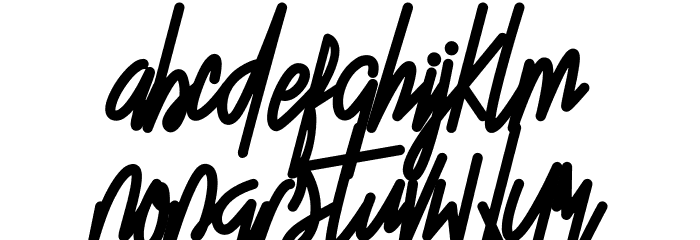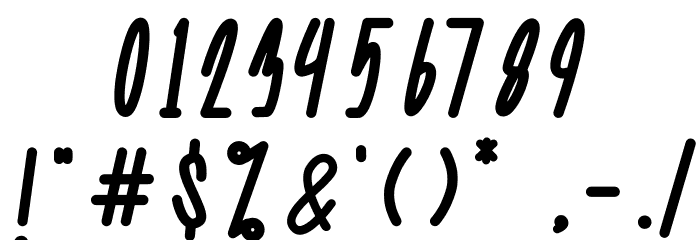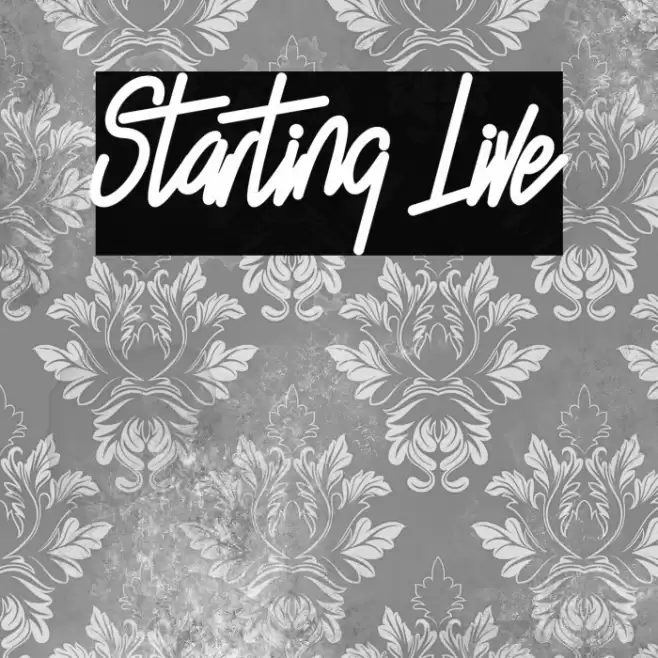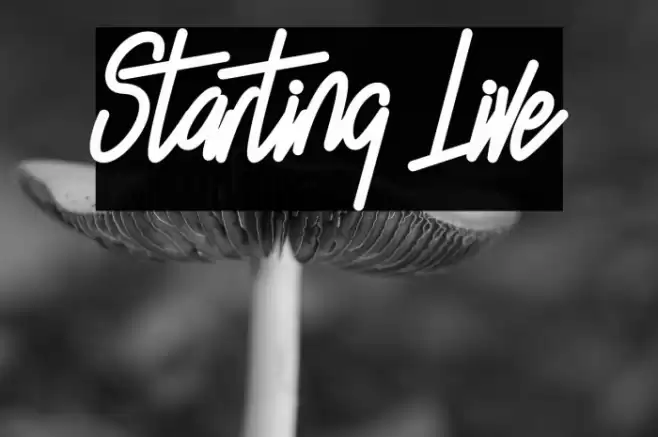
Starting Live Font
This font features a dynamic and energetic script style, characterized by its bold and fluid strokes. The uppercase letters are tall and narrow, with a slight slant that adds a sense of motion and urgency. The lowercase letters maintain a consistent flow, with smooth connections between characters, enhancing the handwritten feel. Numbers and special characters follow the same lively style, ensuring a cohesive look across all text. The font's overall appearance is both modern and expressive, making it suitable for projects that require a personal touch.
A bold, energetic script font with fluid, connected strokes.
- Font: Starting Live
- Proposed Projects: Ideal for branding, invitations, posters, and any design that benefits from a personal, handwritten touch.
- Category: Script
- Character Spacing: Tight
- Overall Style: Modern, Expressive
- Use Case: Logos, Headlines, Invitations